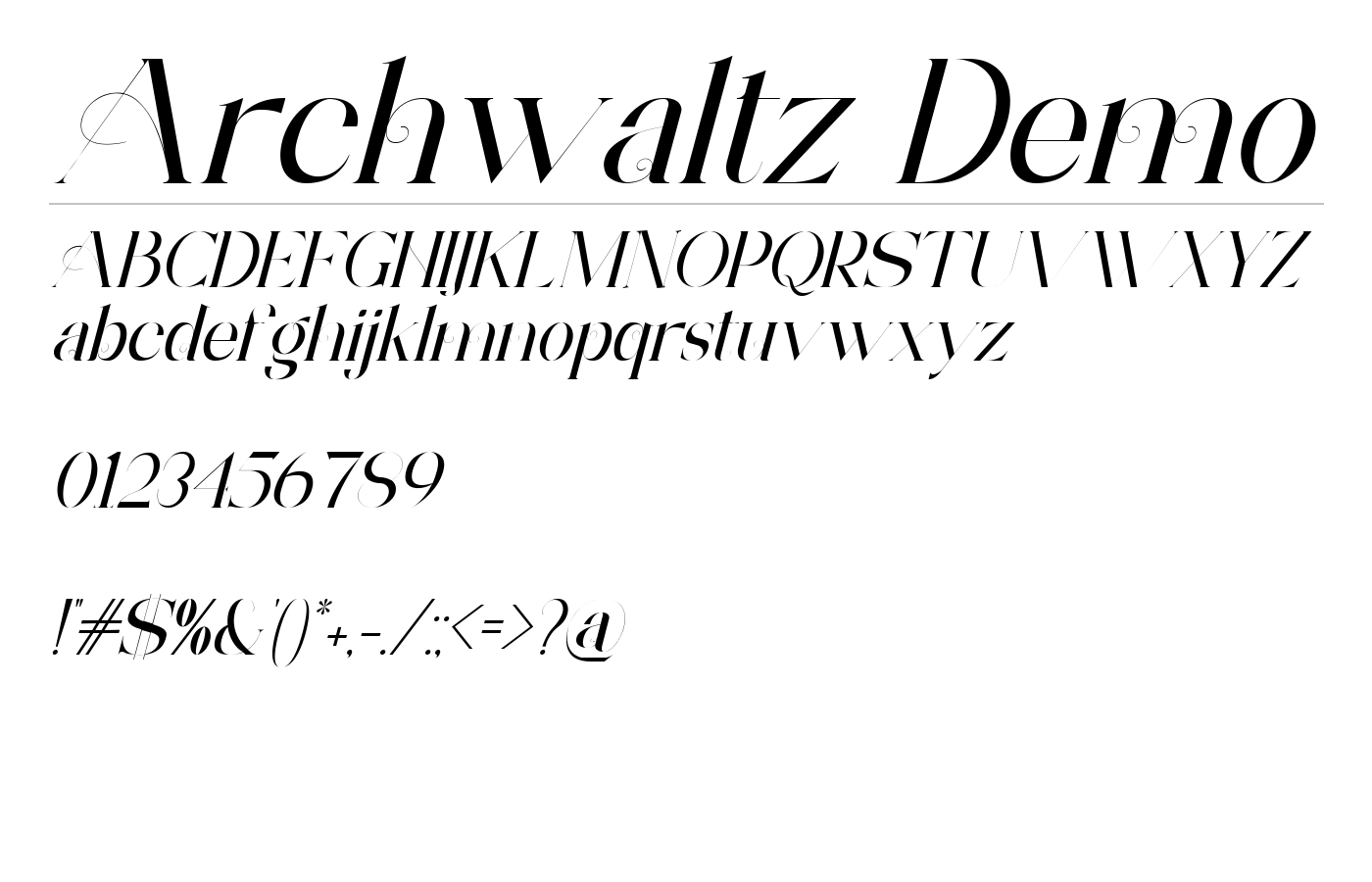
Archwaltz Demo is a sophisticated modern serif font with high contrast between thick and thin strokes, featuring elegant, sharp serifs and delicate swashes that add a graceful flair. Its narrow width and refined letterforms create an upscale, luxurious feel, making it perfect for high-end branding, editorial headlines, and fashion packaging where elegance and style are paramount. This font excels at conveying a sense of refinement and exclusivity with its stylish, italicized appearance and artistic details.
Archwaltz Demo Font
About Archwaltz Demo Font
| Font family | Archwaltz Demo Font |
| Designer | Irfan Hidayat |